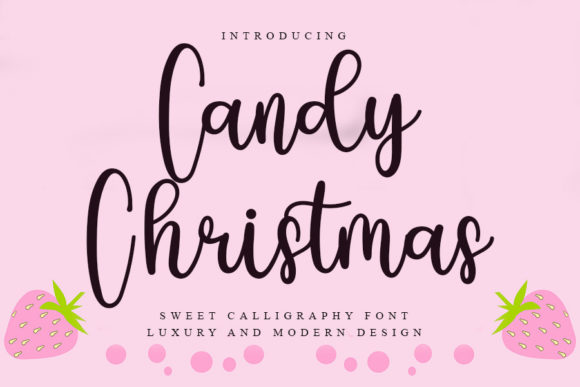
The Sweetest Script Font for Your Holiday Projects: Candy Christmas
It’s that time of the year again – the holiday season is just around the corner, and with it comes the pressure to create stunning, festive designs. I still remember the year I was tasked with designing a Christmas card for my family’s annual newsletter. I spent hours scrolling through font libraries, searching for the perfect script font to capture the playful, cheerful spirit of the season. That’s when I stumbled upon Candy Christmas, a lovely script font that has since become a staple in my design toolkit.
A Personal Review of Candy Christmas
Candy Christmas is a charming script font that features playful characters that seem to dance along the baseline. Here’s what I love about it:
• ✨ Elegant yet playful character design
• ✅ Beautifully crafted to evoke a sense of festive fun
• 💃 Highly versatile and perfect for a variety of design projects
While Candy Christmas is an excellent font, it’s not without its quirks. Here are a few things to keep in mind:
• 🤔 Some characters may appear a bit cramped at smaller font sizes
• ⚠️ Limited availability of stylistic alternates
The Story Behind Candy Christmas
Candy Christmas was designed by a talented typographer who wanted to capture the playful, festive spirit of the holiday season. The font was inspired by traditional holiday decorations, such as candy canes, holly leaves, and snowflakes. The result is a charming script font that’s perfect for designs that require a touch of festive fun.
What is Candy Christmas? Candy Christmas is a lovely script font featuring charming, playful characters that seem to dance along the baseline.
Does Candy Christmas support OpenType features? Yes, Candy Christmas supports OpenType features, including glyphs and stylistic alternates.